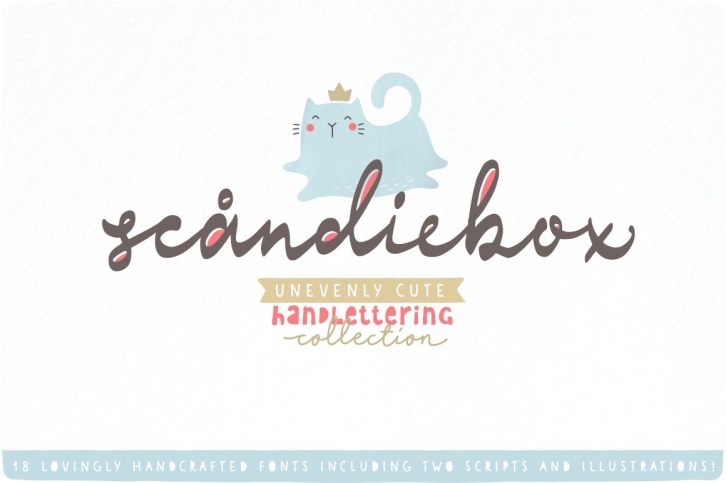
It’s time to have some fun! The new Scandiebox collection was inspired by simplicity of the modern Scandinavian style and had some influence of Japanese kawaii. All handwritten fonts in this collection perfectly compliment each other as well as the set of more than 100 illustrations created in the same happy style.